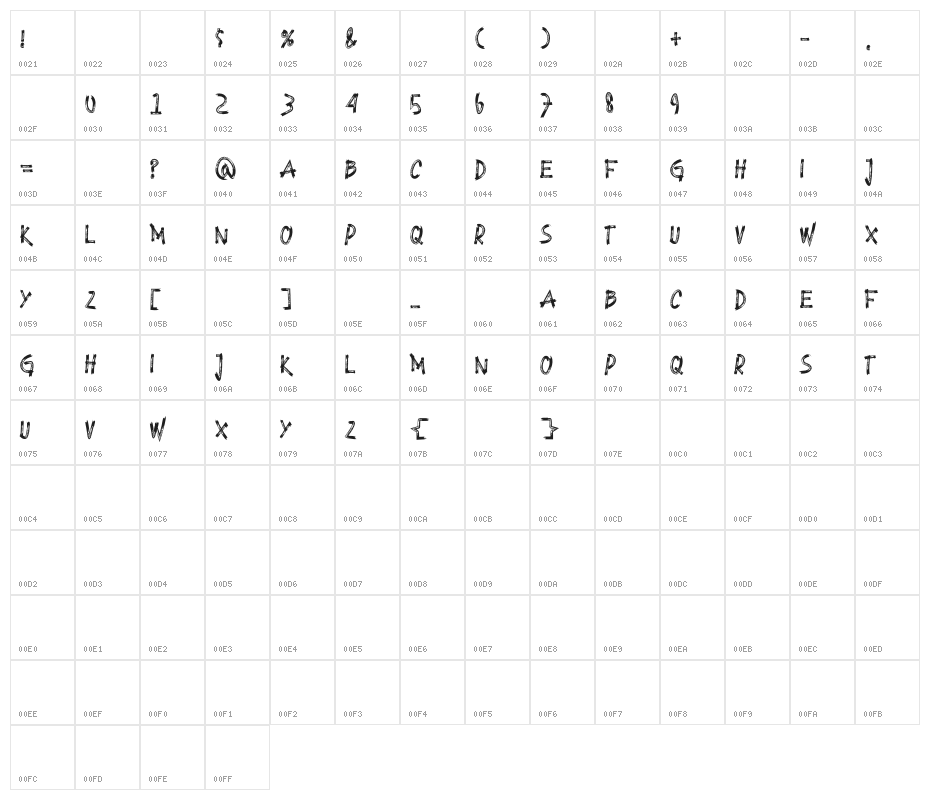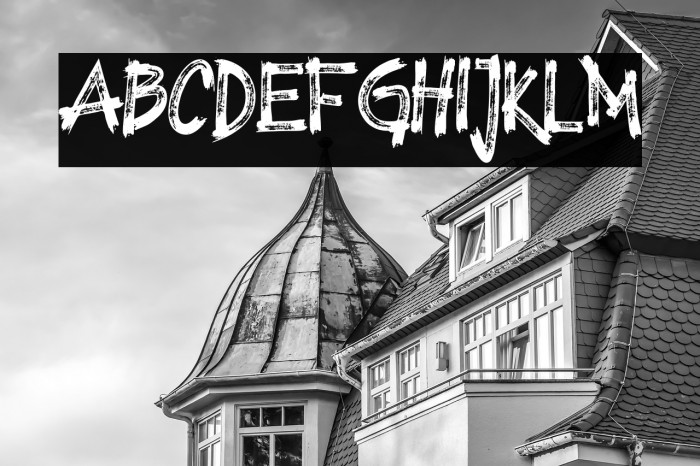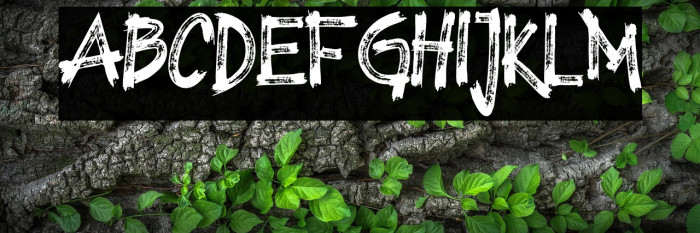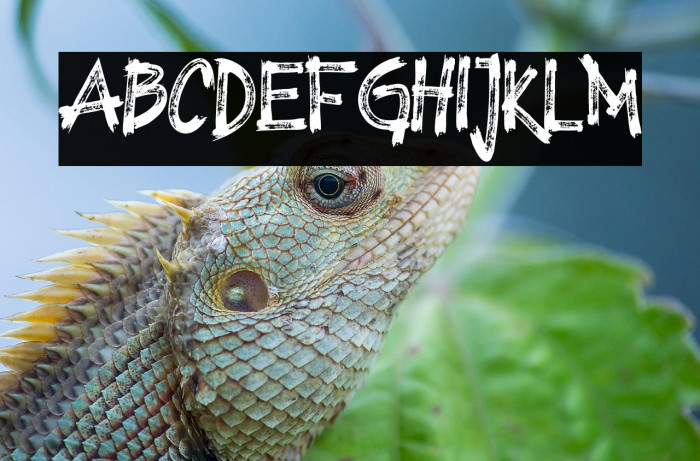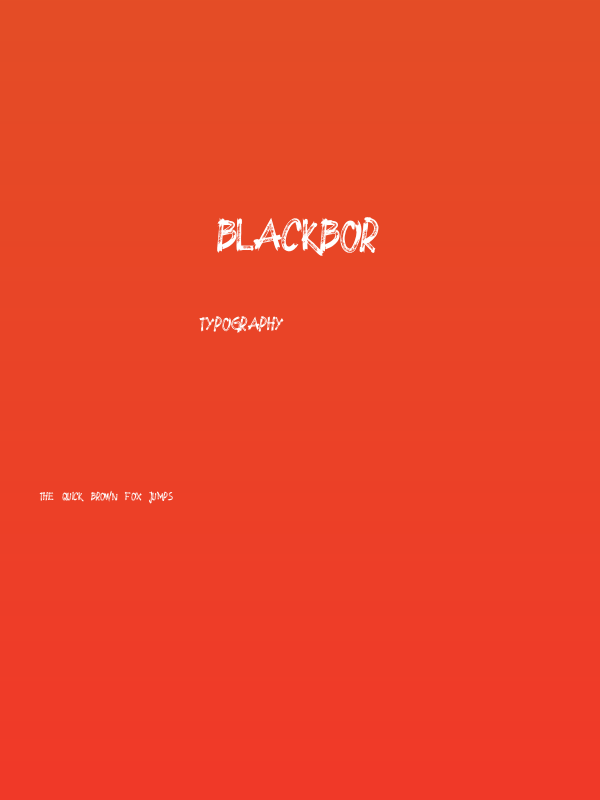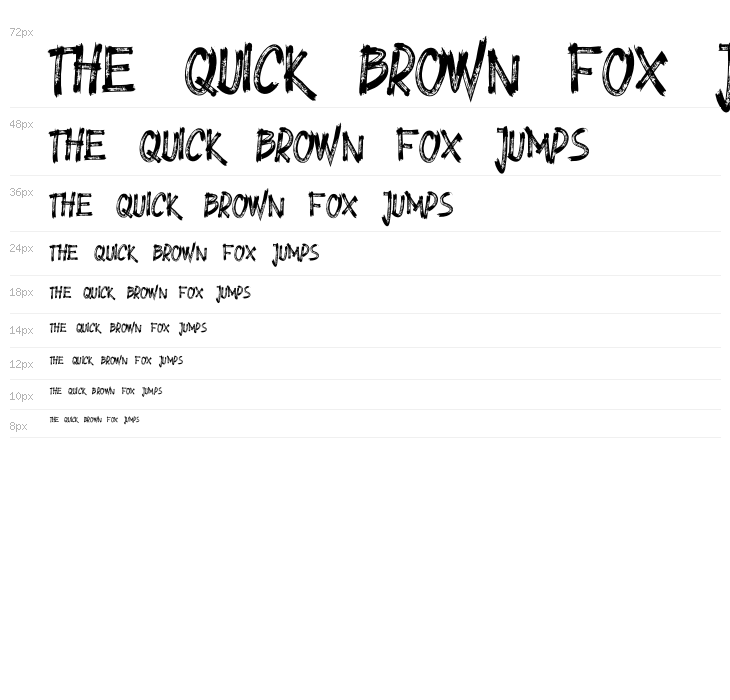
BLACKBOR Font
BLACKBOR Description
This font features a bold, expressive style with a hand-drawn appearance. The characters have a rough, textured look, reminiscent of brush strokes or graffiti art. The uppercase and lowercase letters maintain a consistent style, with exaggerated angles and uneven edges that give a dynamic and energetic feel. The numbers and special characters follow the same design, ensuring a cohesive look across all elements. This font is perfect for projects that require a bold statement or an artistic touch.
Proposed ProjectsIdeal for posters, album covers, street art designs, and any project needing a bold, artistic flair.